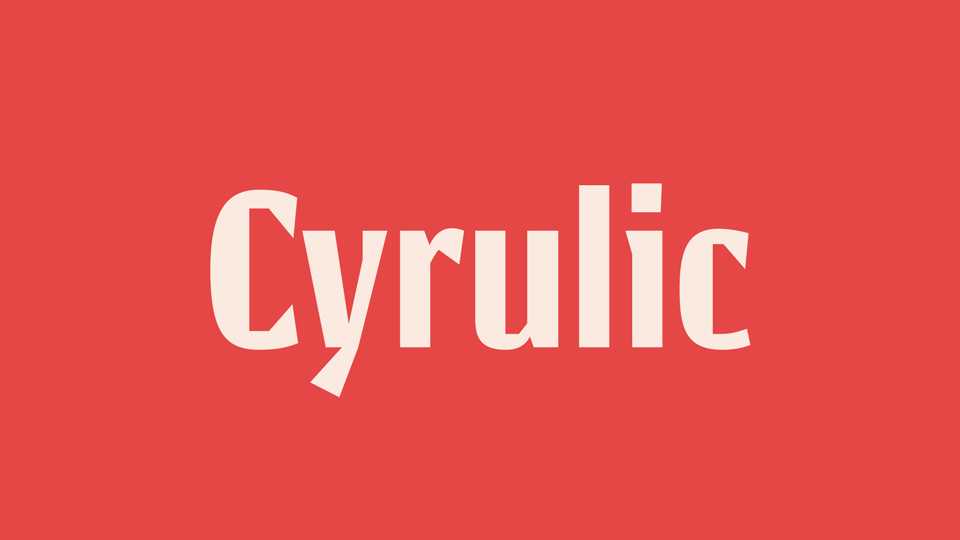
Download Cyrulik typeface, a font family inspired by technical stencil lettering found on electrical and mechanical devices in Warsaw, and a prewar headline display font Cyklop used in a newspaper called “Cyrulik Warszawski”.
Designer: Maciej Połczyński